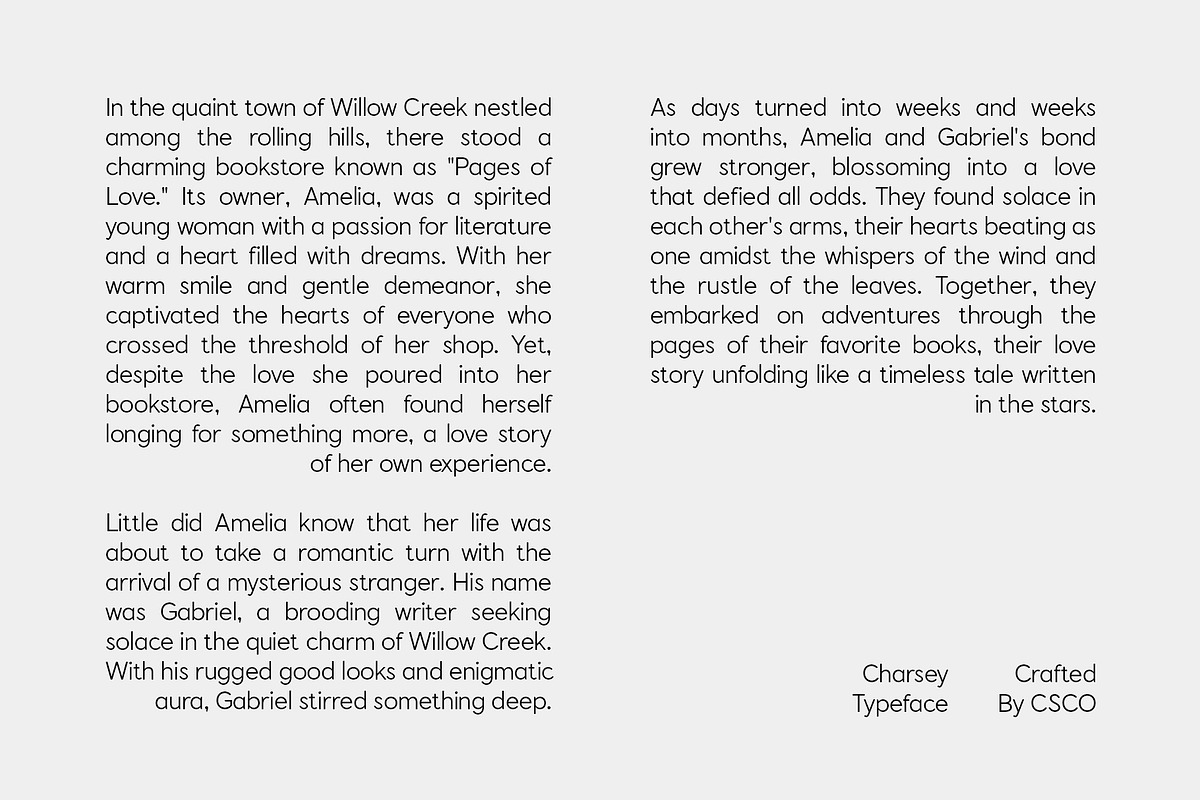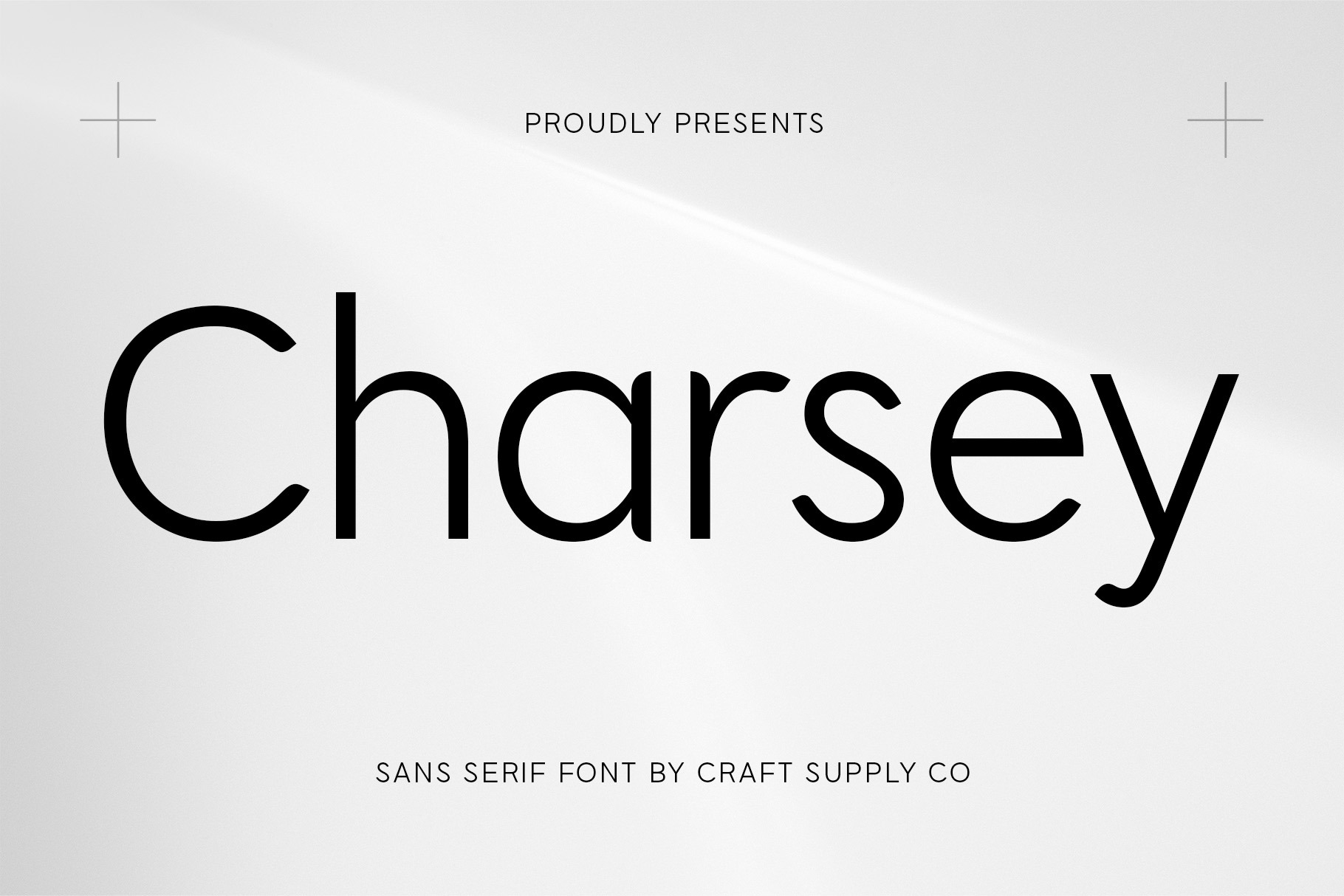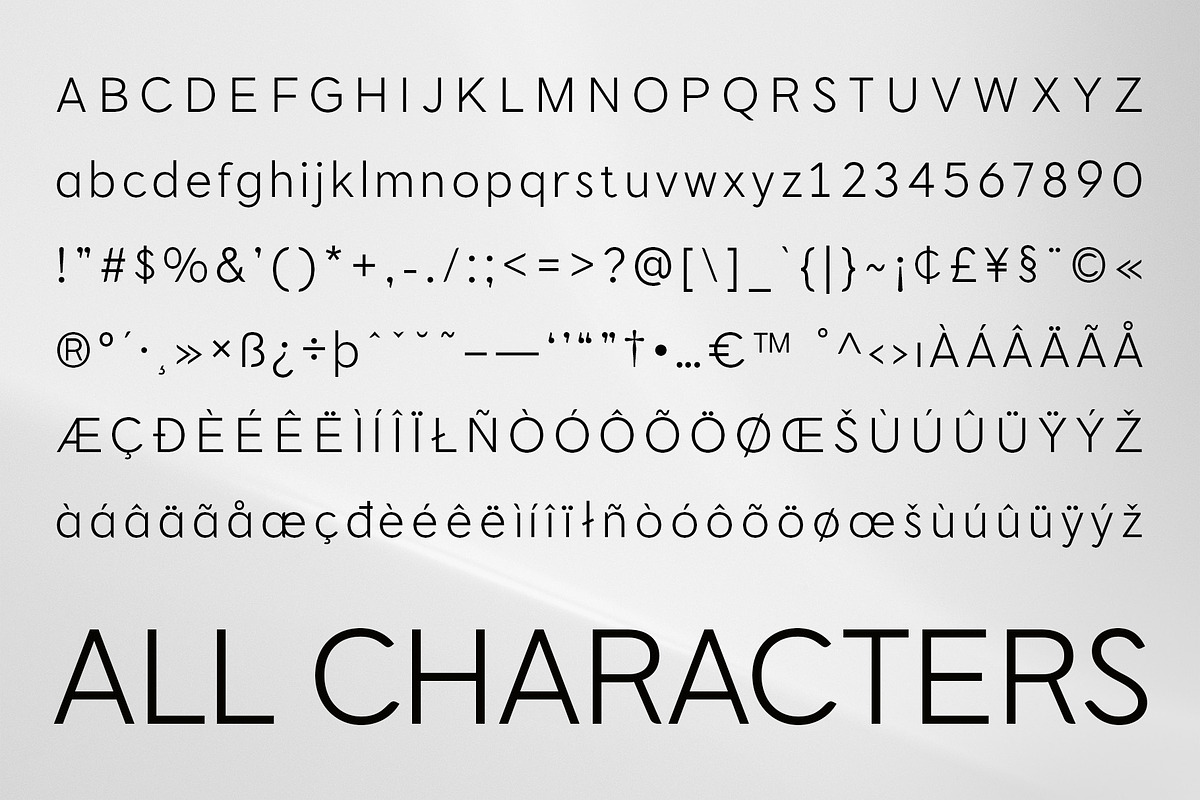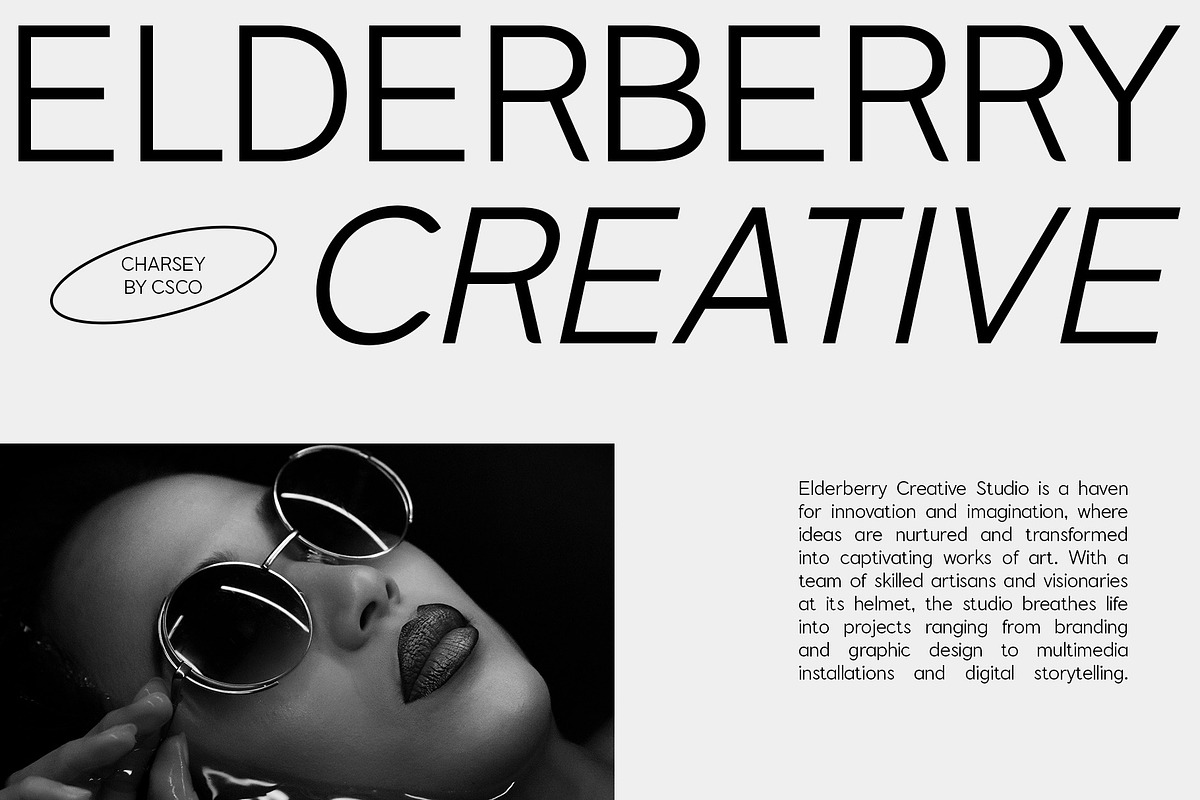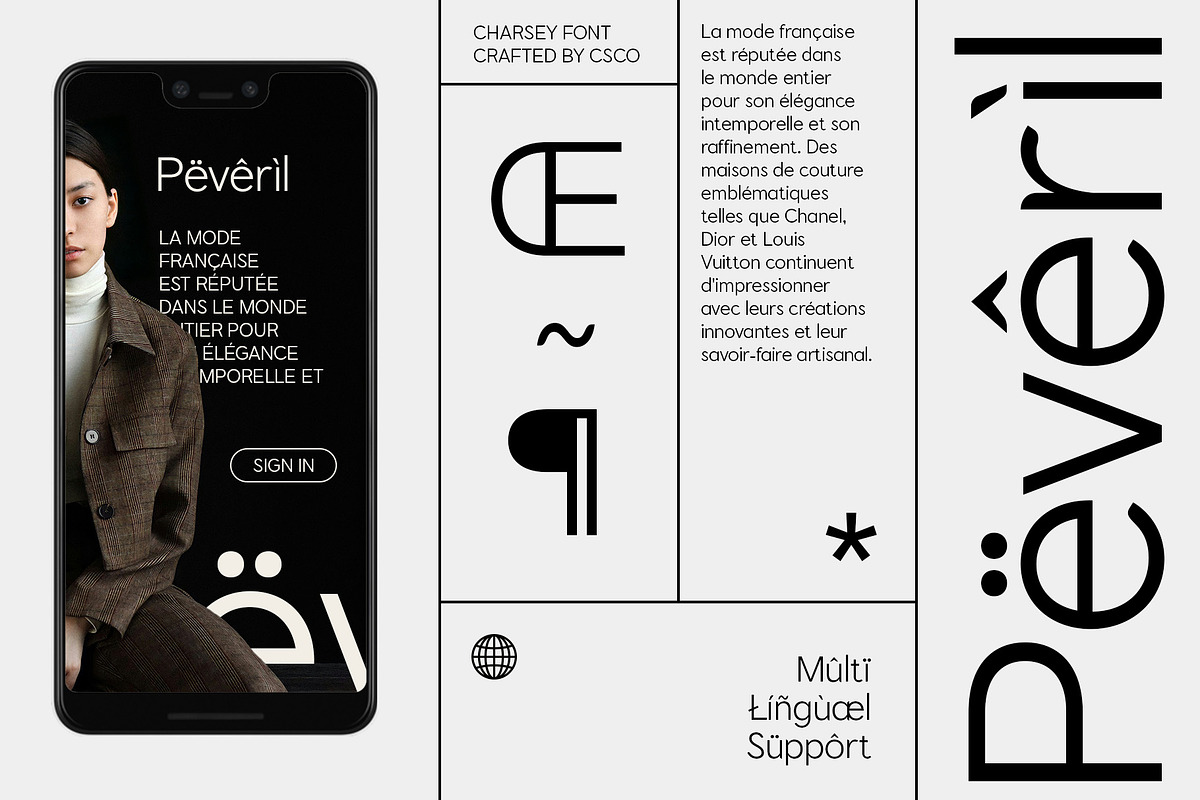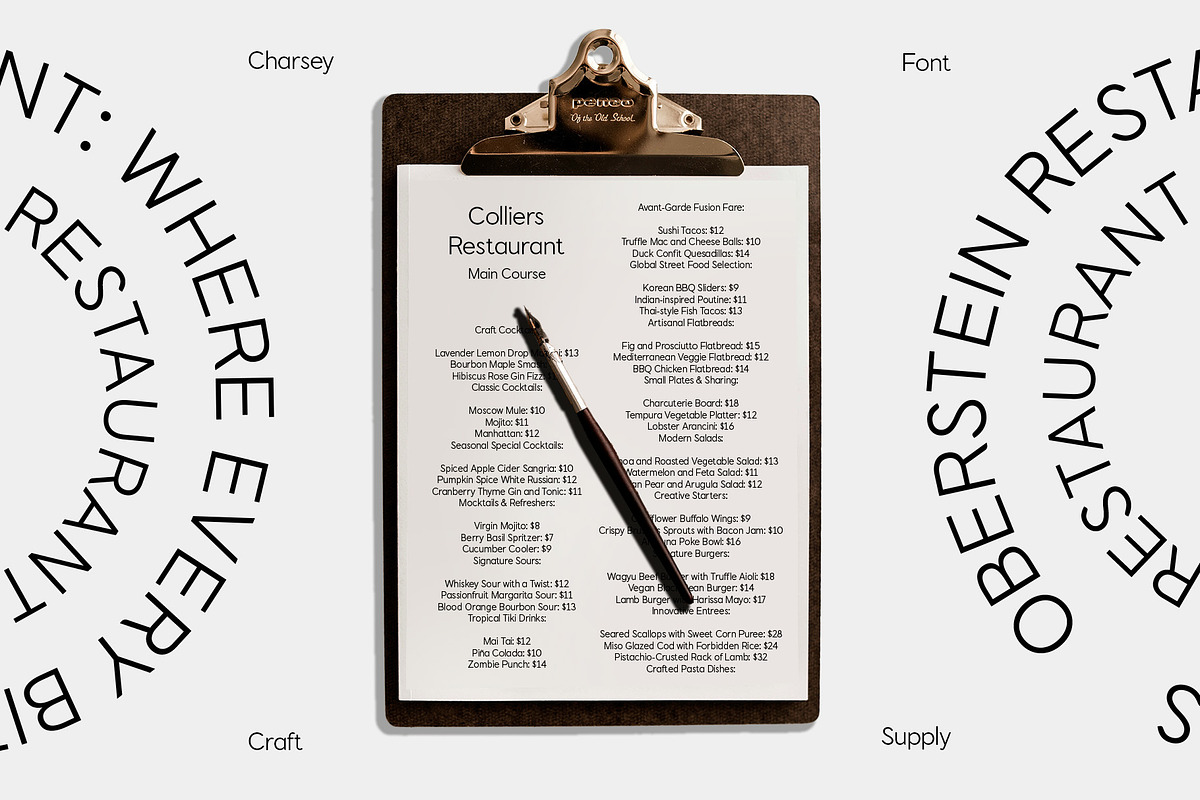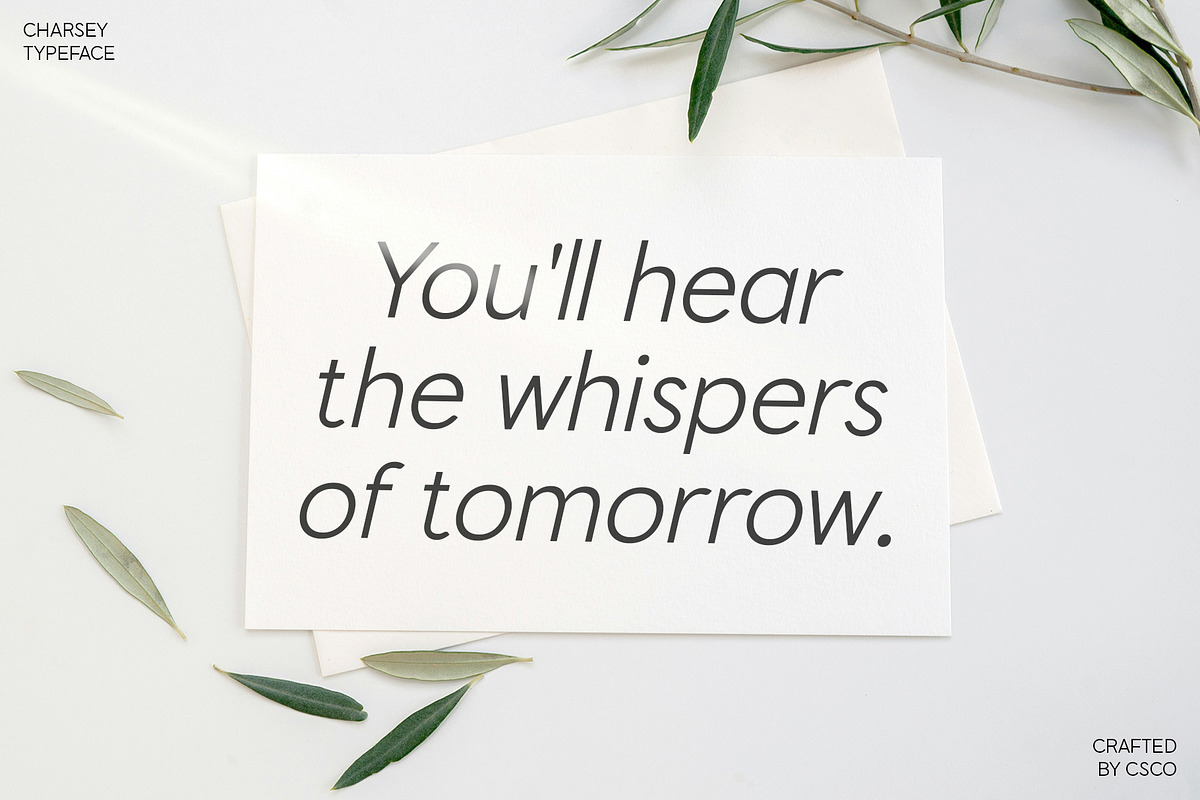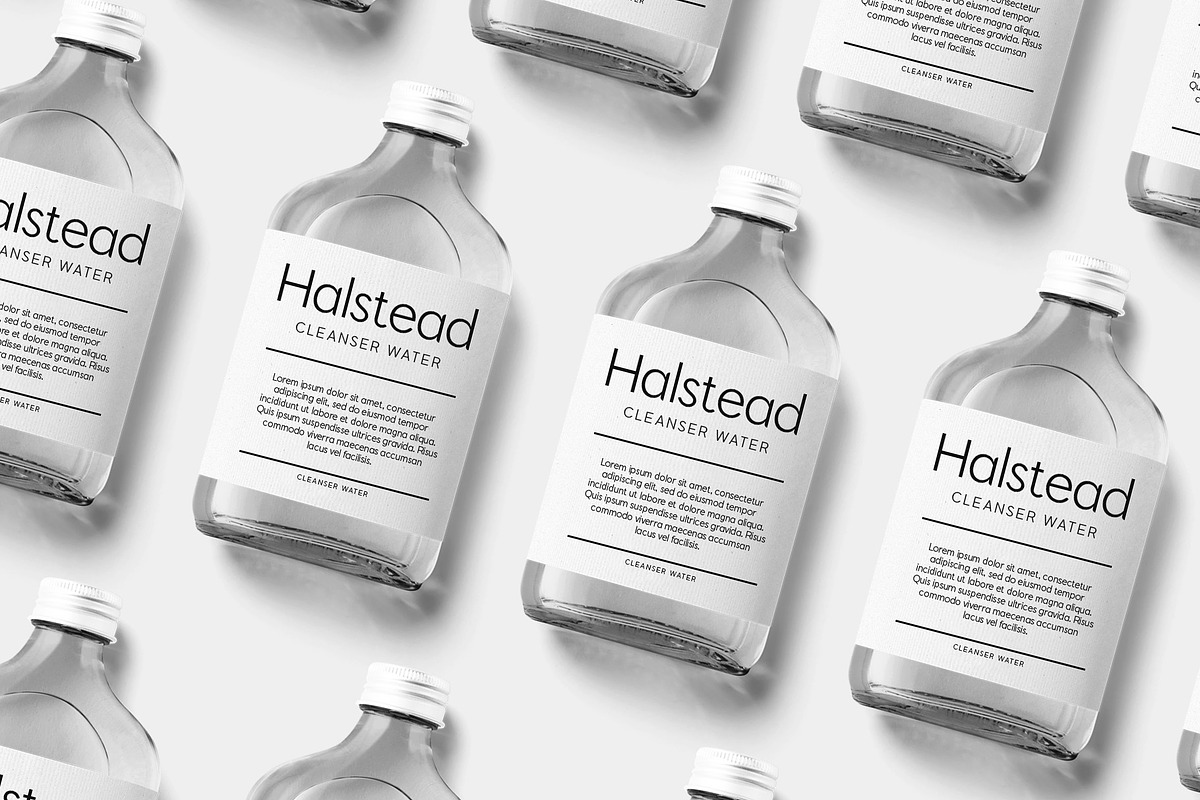
Charsey – Modern Font
Charsey – Modern Font: Where Simplicity Meets Professionalism
Modern Sans-Serif Font
Charsey is a modern sans-serif font suitable for professional use, such as corporate logos and promotional materials. Its clean and minimalistic design conveys a sense of modernity and professionalism, making it ideal for projects that require a sleek and contemporary aesthetic.
Versatile and Clean
With its versatile design, Charsey Font is suitable for a variety of uses, including branding, editorial design, and advertising. Its simplicity and readability make it a versatile choice for designers looking to create clean and modern designs.
Enhanced Professionalism
Charsey Font prioritizes professionalism, ensuring that your designs are both polished and impactful. Whether used in print or digital media, this font adds a sense of sophistication and elegance that resonates with viewers.
Perfect for Corporate Designs
Whether you’re designing a corporate logo, creating promotional materials, or developing a website, Charsey Font is the perfect choice for projects that require a clean and modern aesthetic. Its modern sans-serif style ensures that your designs will always look professional and polished.